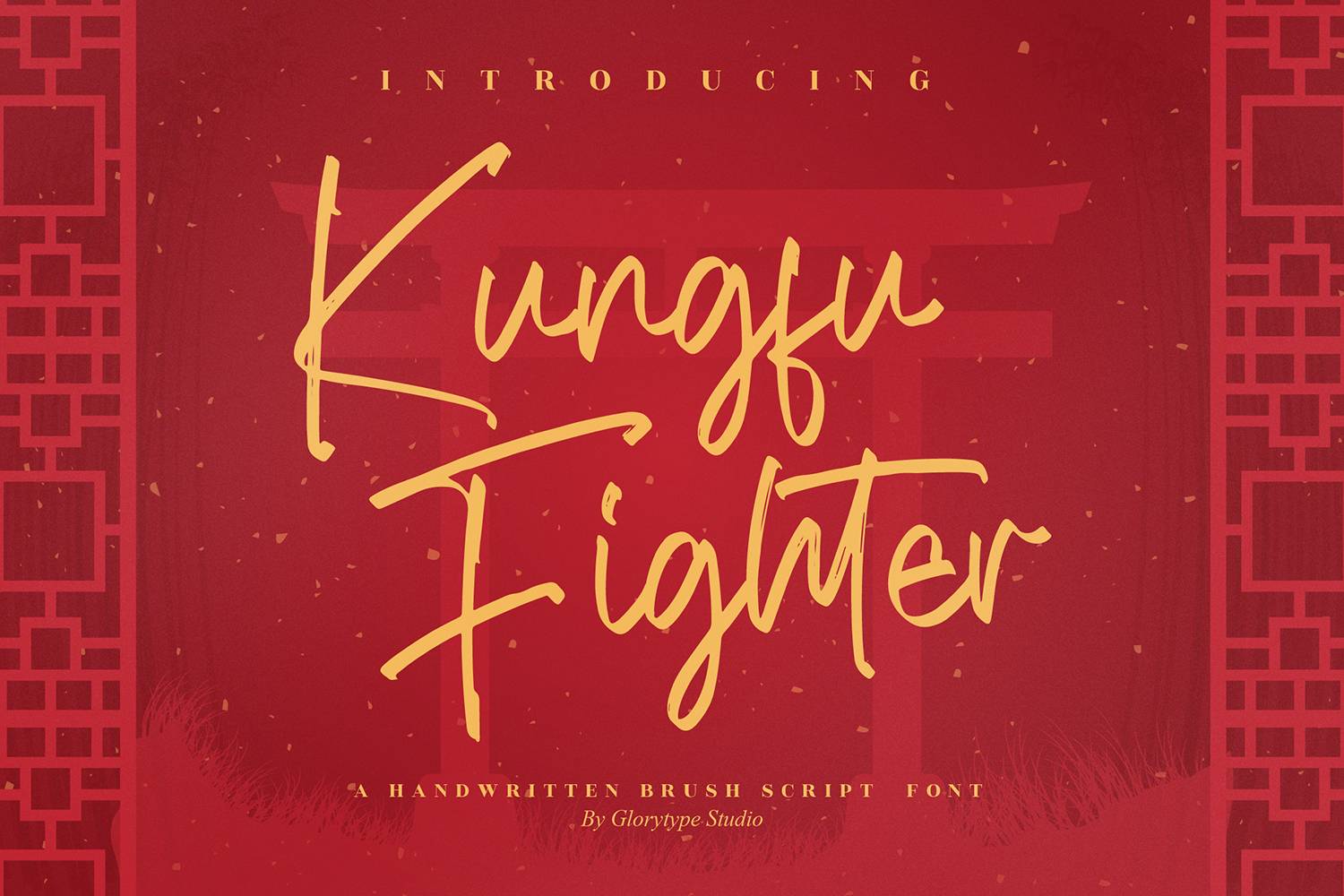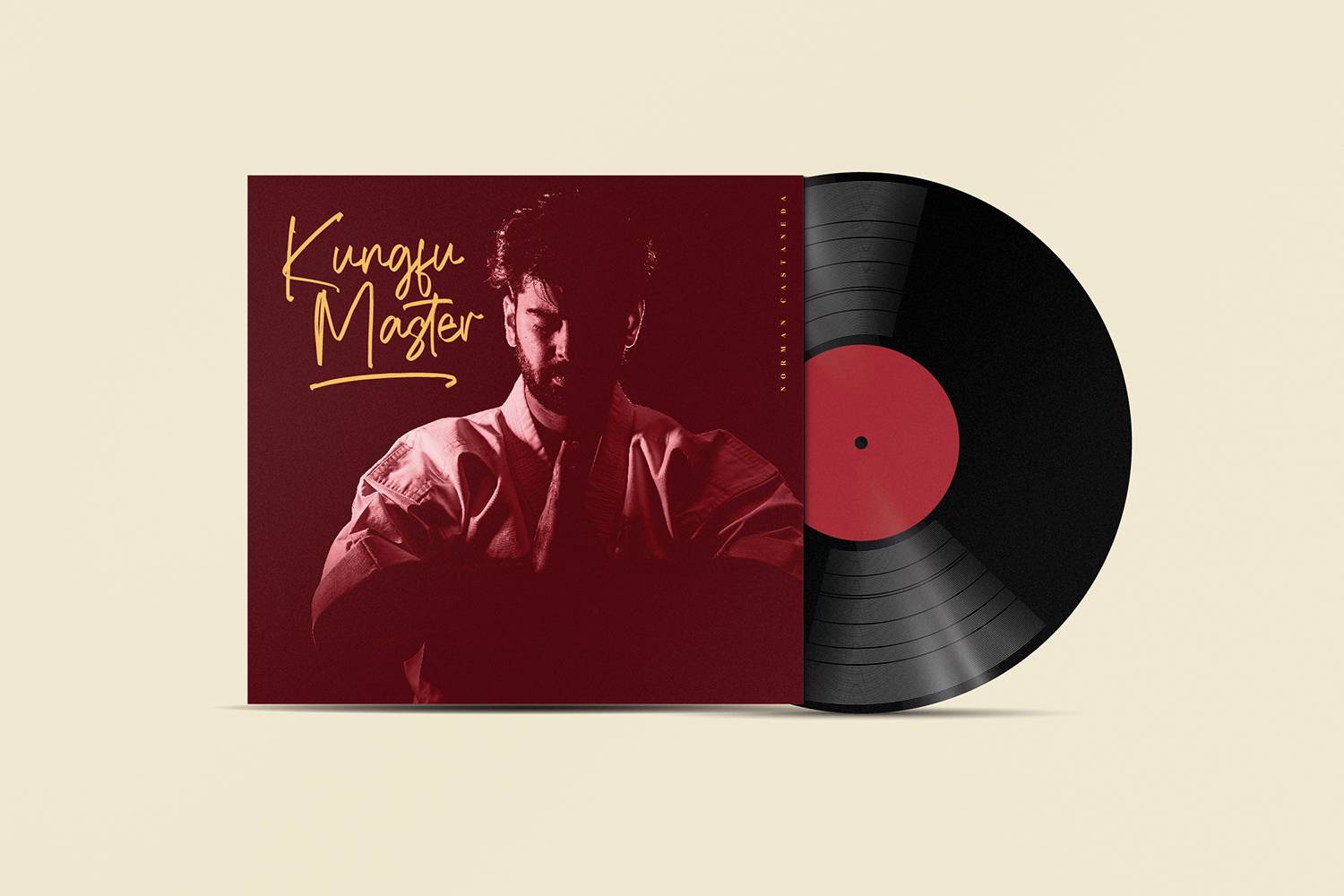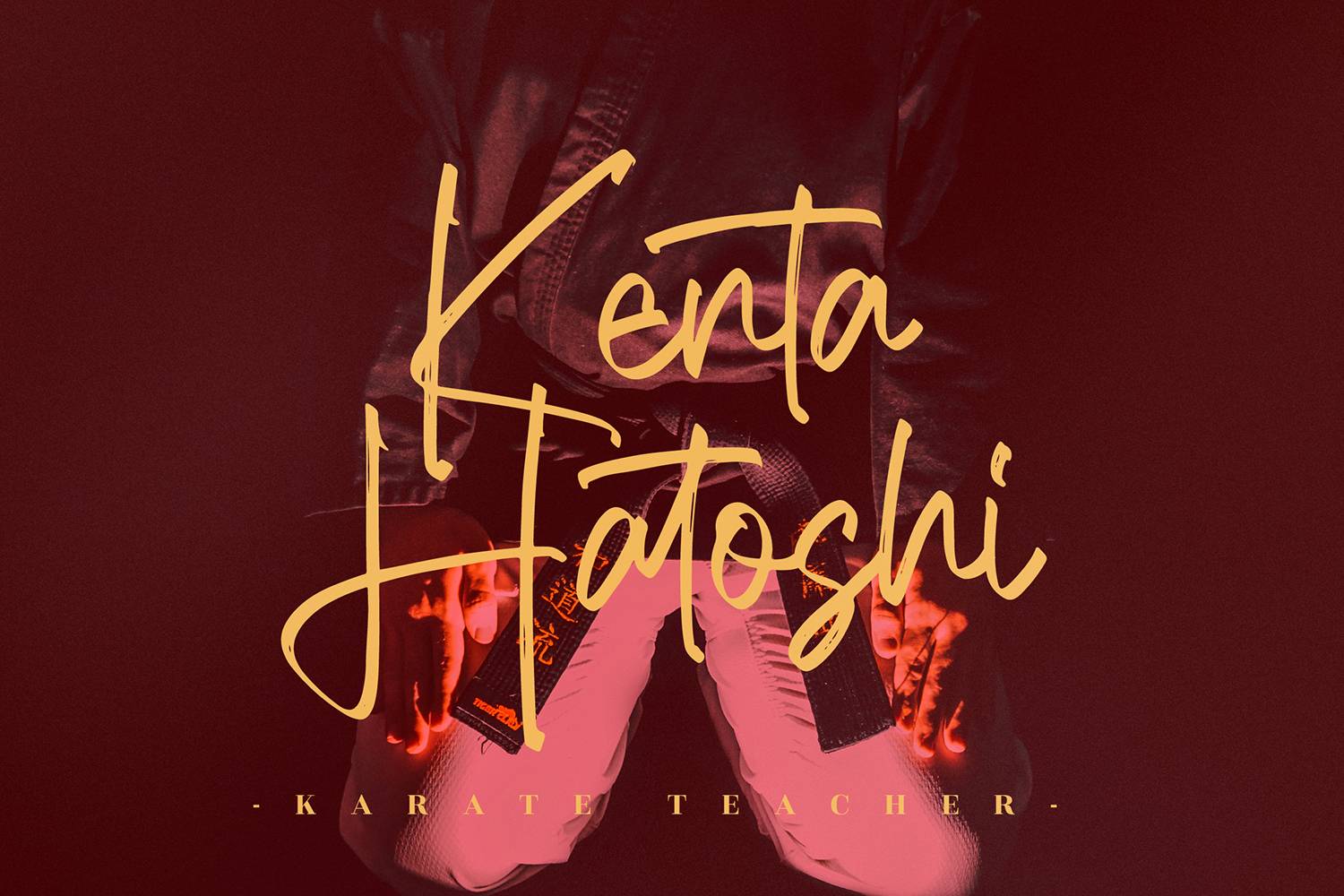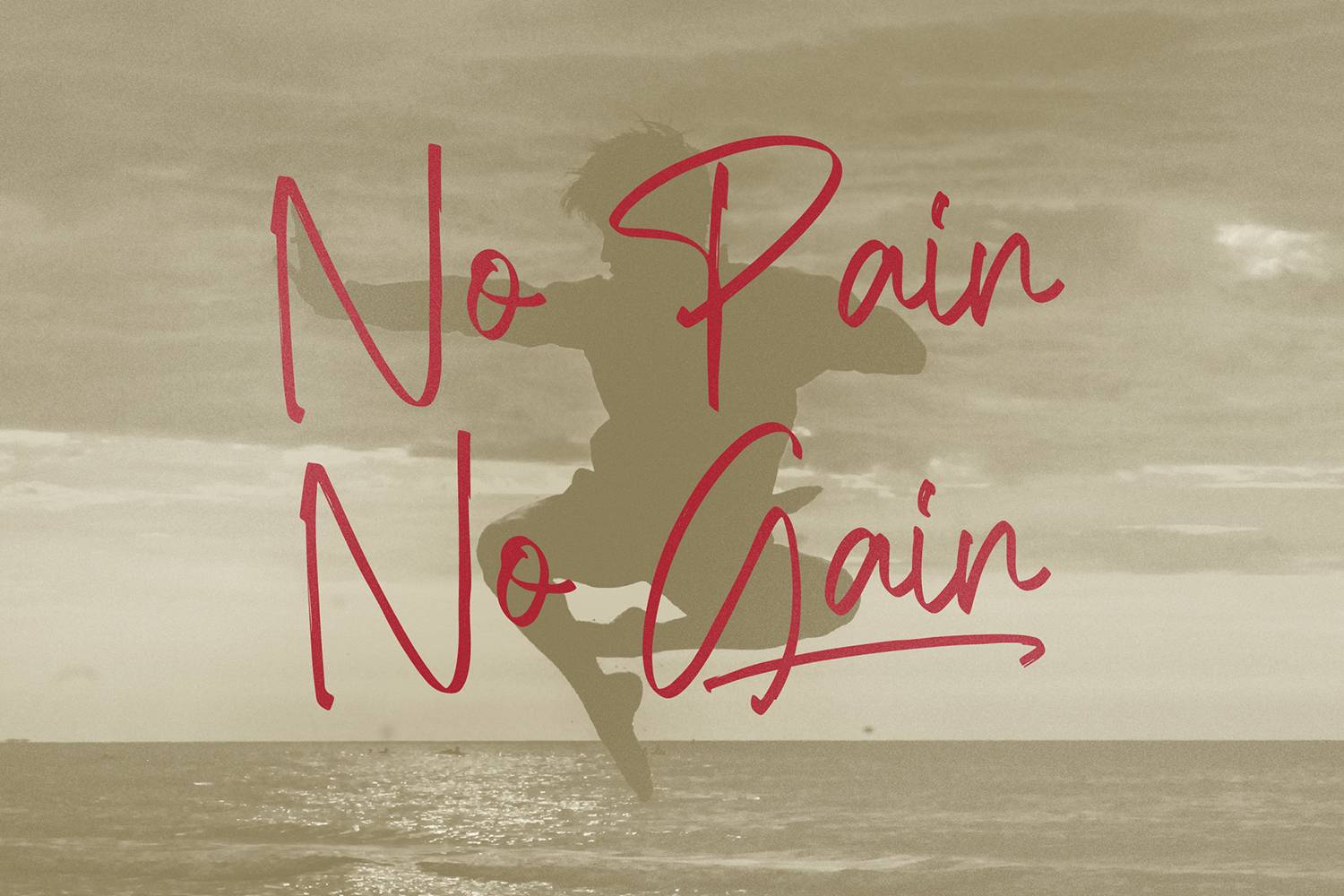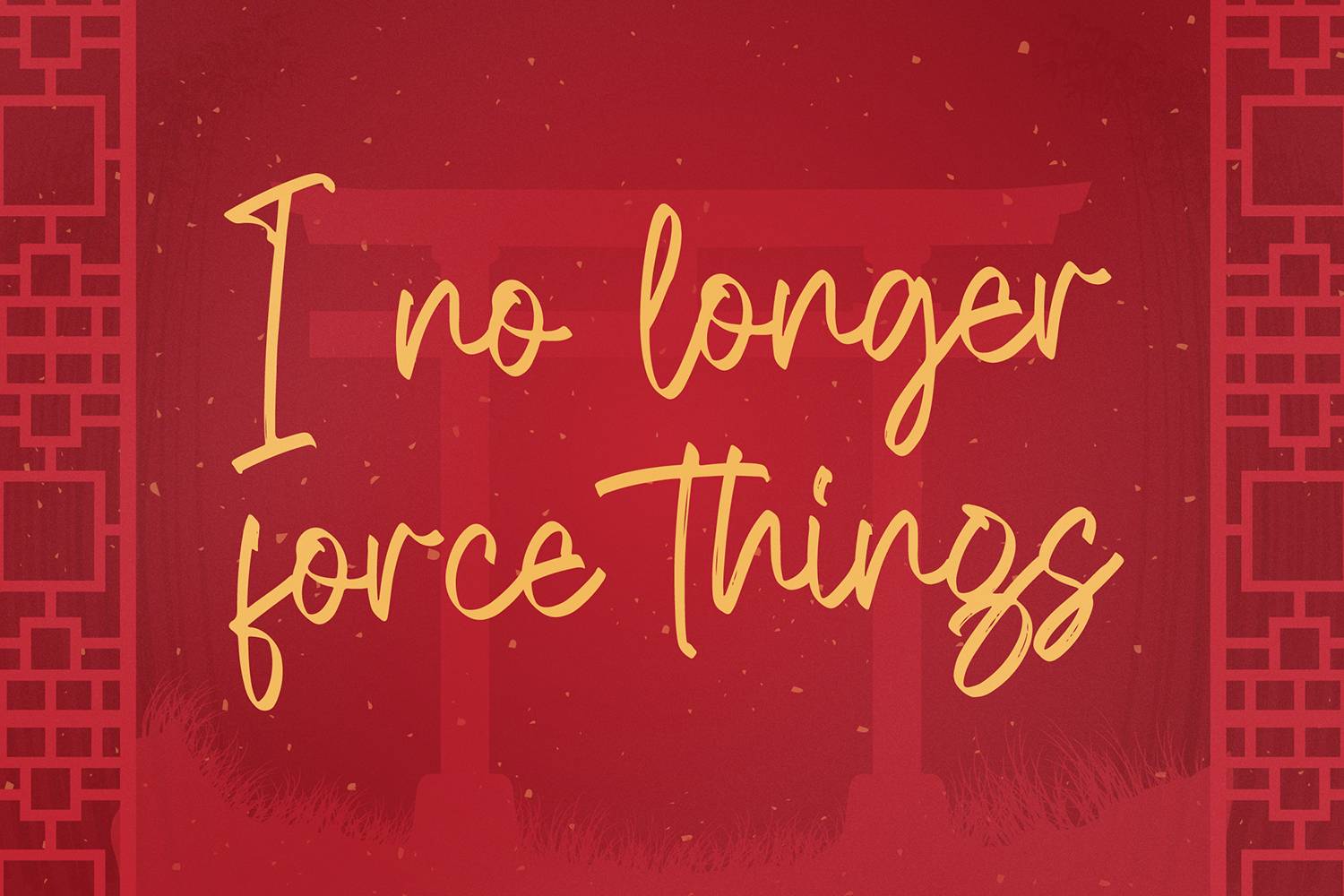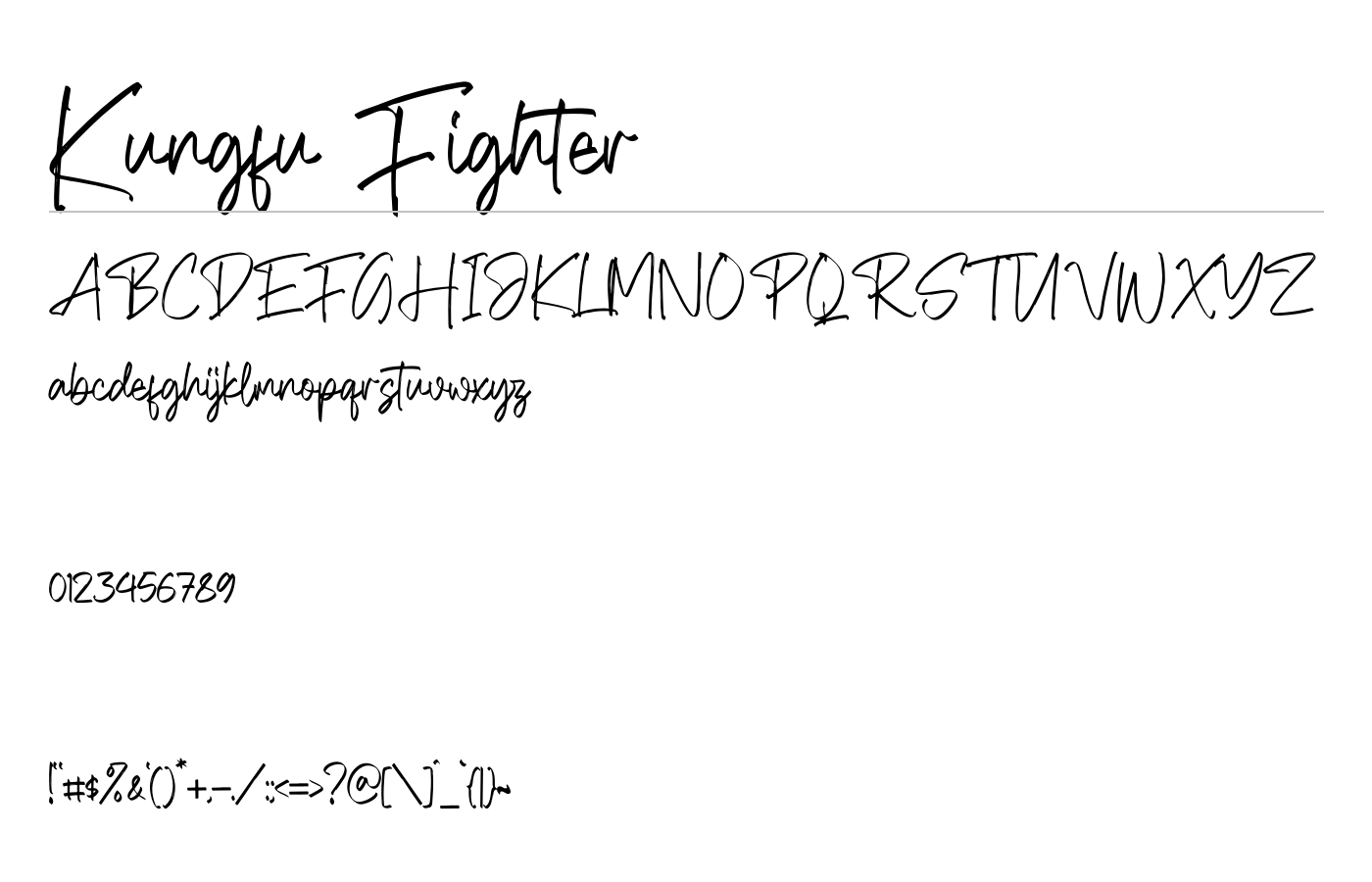
Kungfu Fighter is a lively, handwritten script font with a casual and energetic feel. Its thin, slightly irregular strokes and playful letterforms give it a spontaneous, dynamic character, making it ideal for creative projects that want to convey a personal, informal vibe. This font works well for logos, posters, and branding that seek a bold yet approachable style with a touch of artistic flair.
Kungfu Fighter Font
About Kungfu Fighter Font